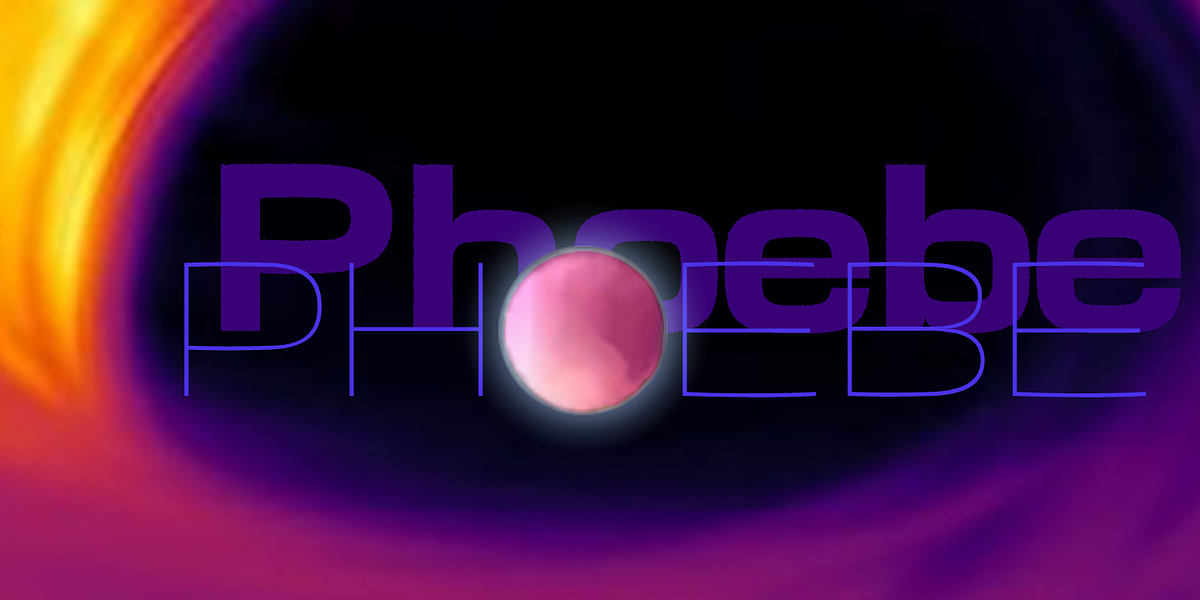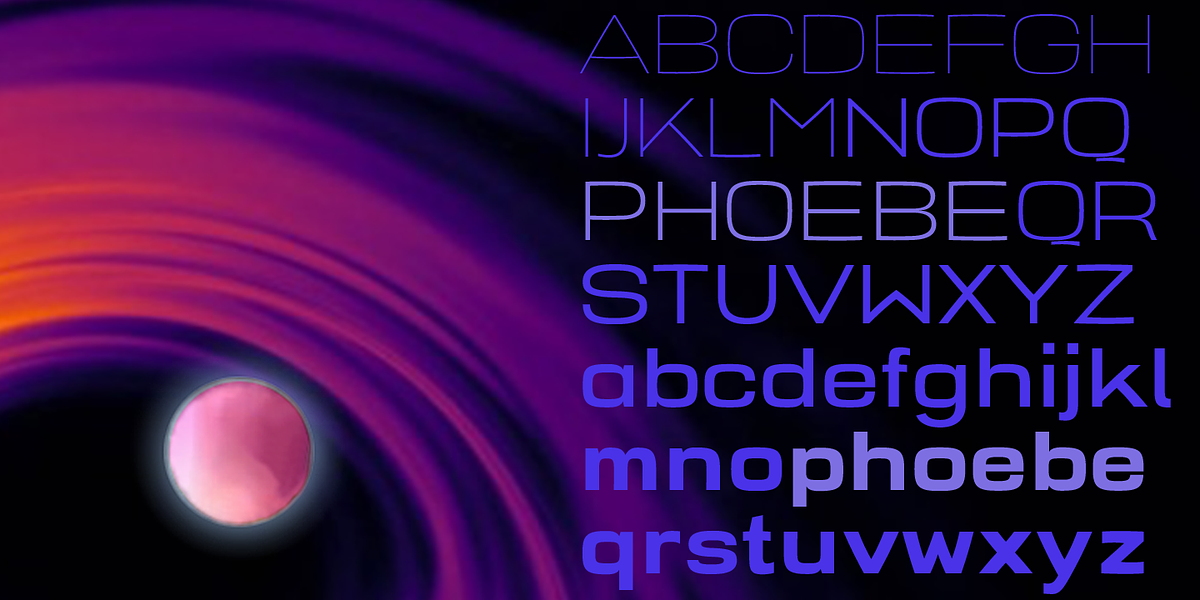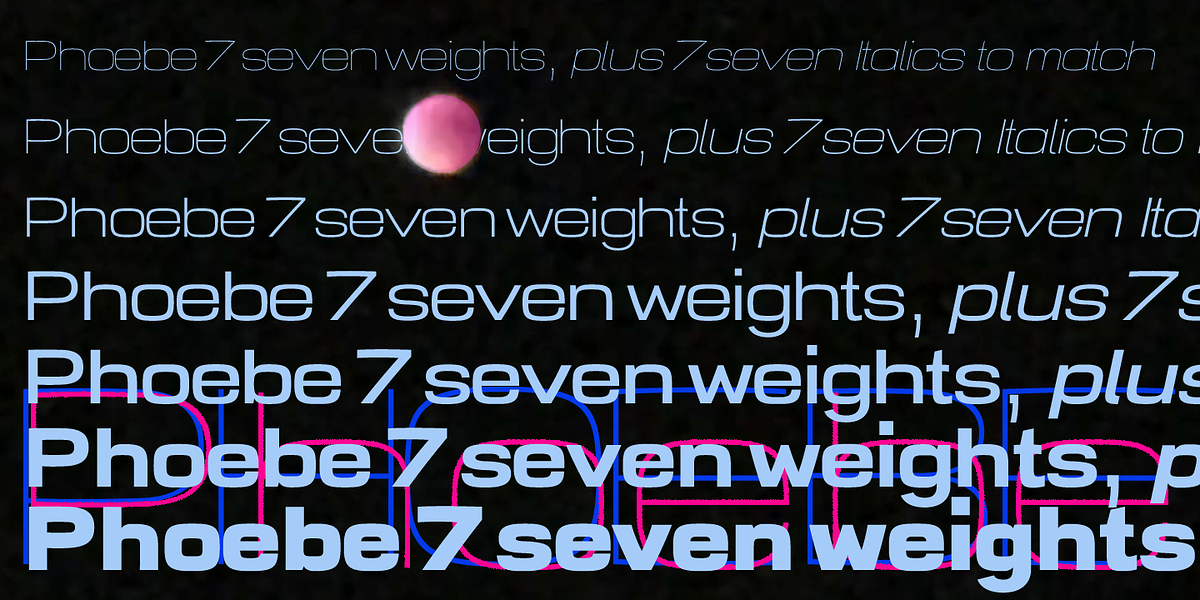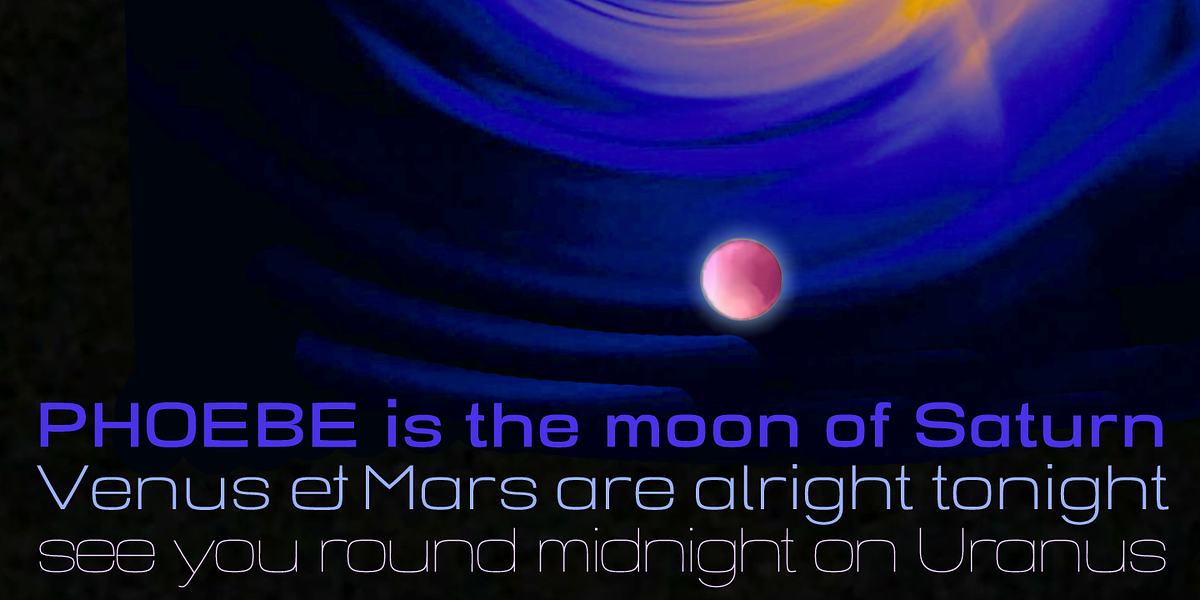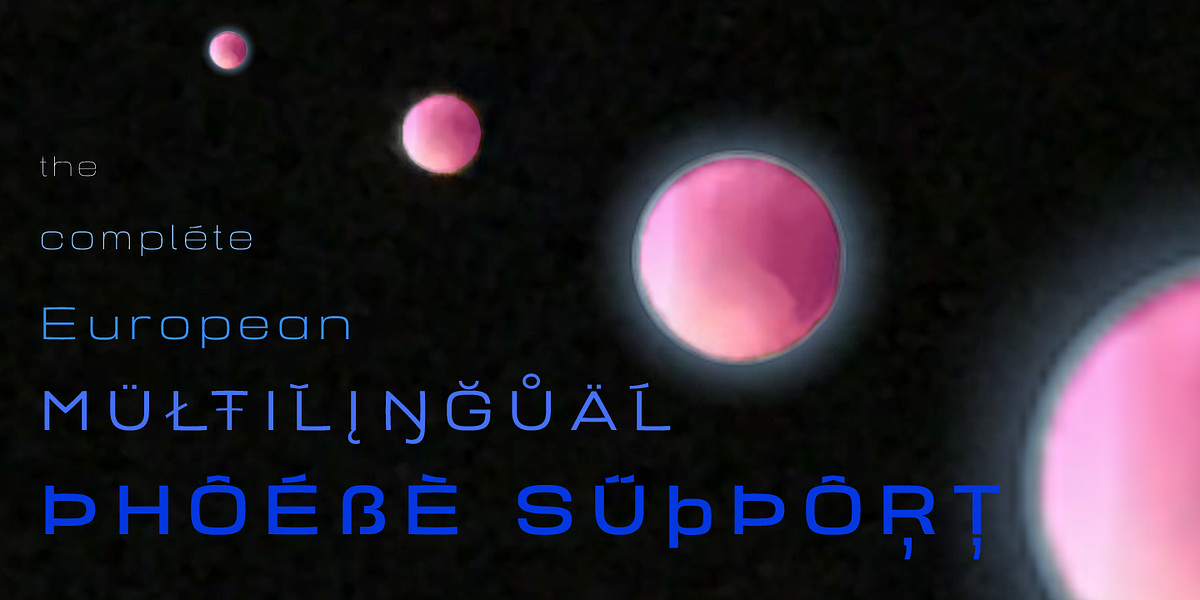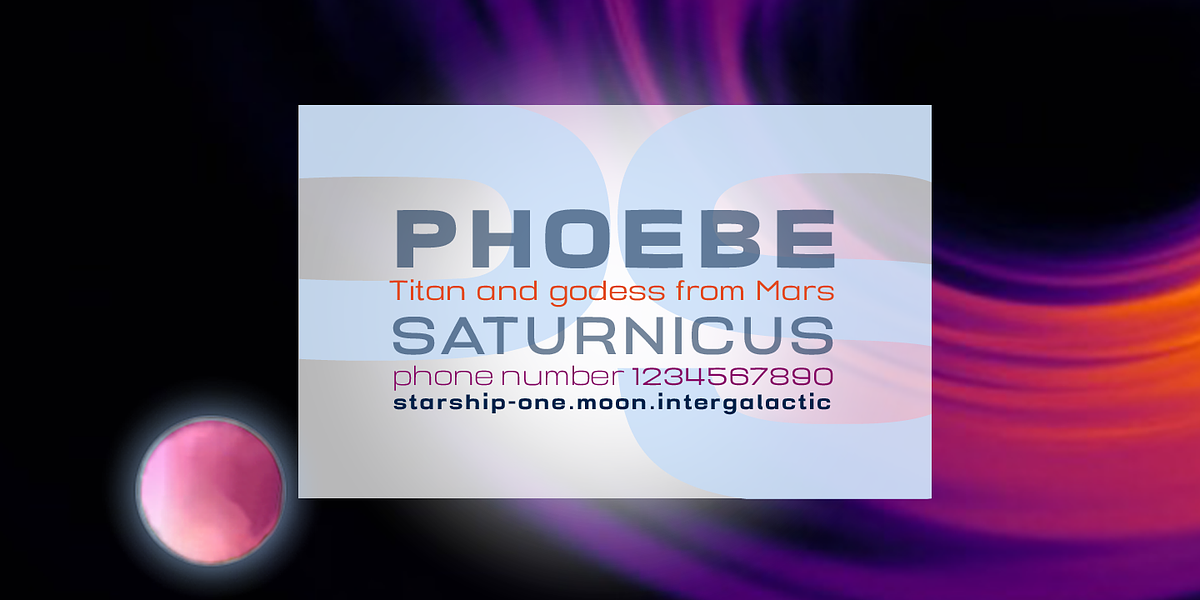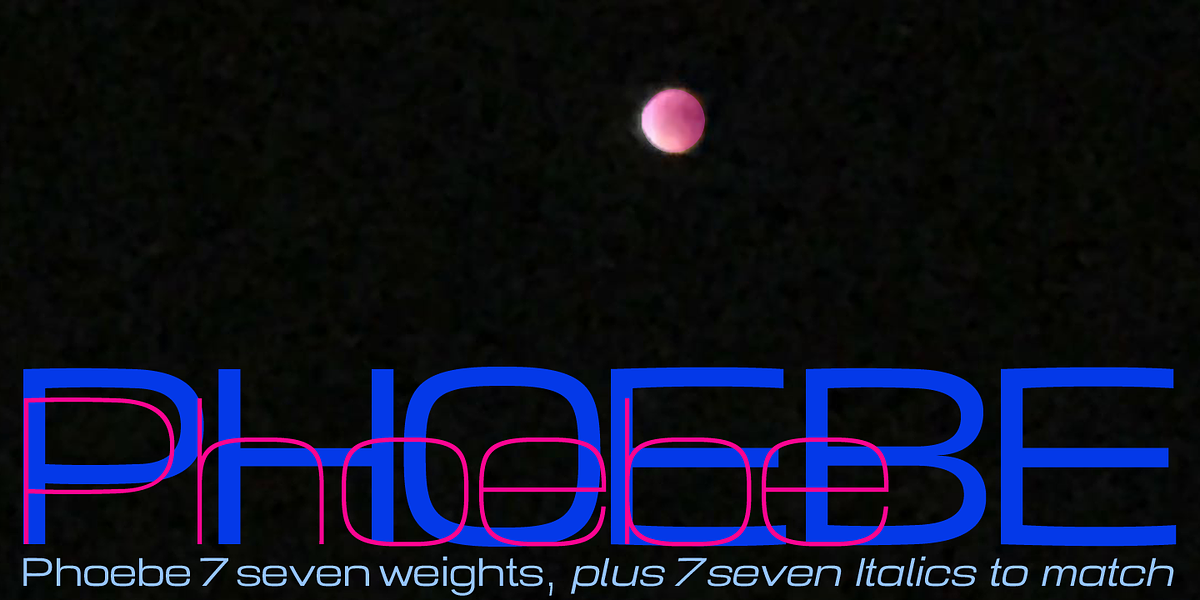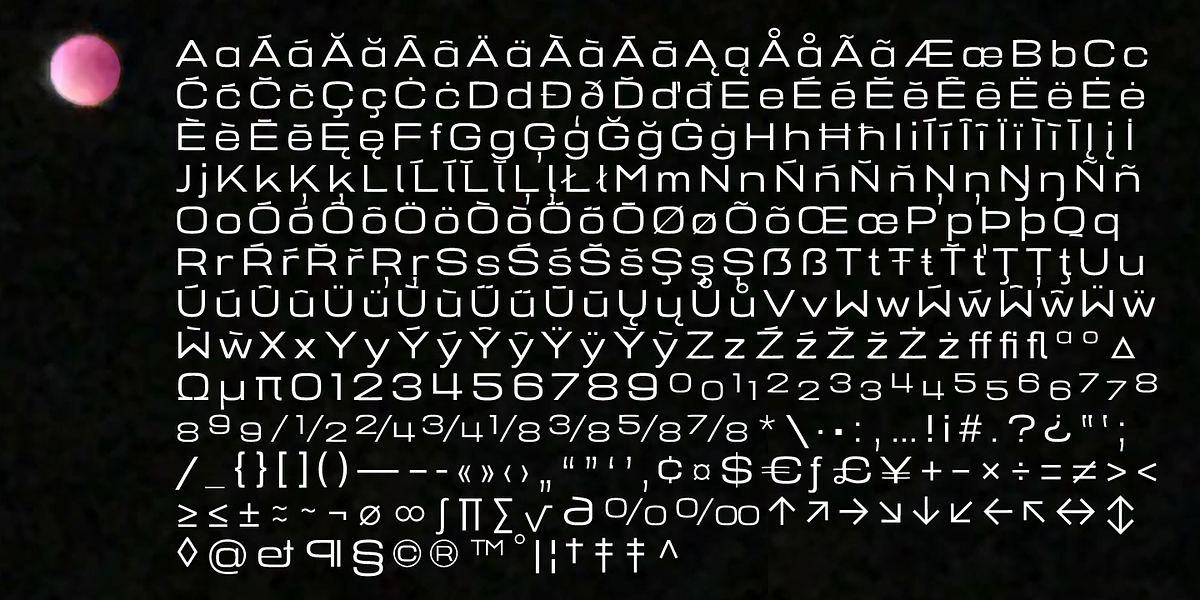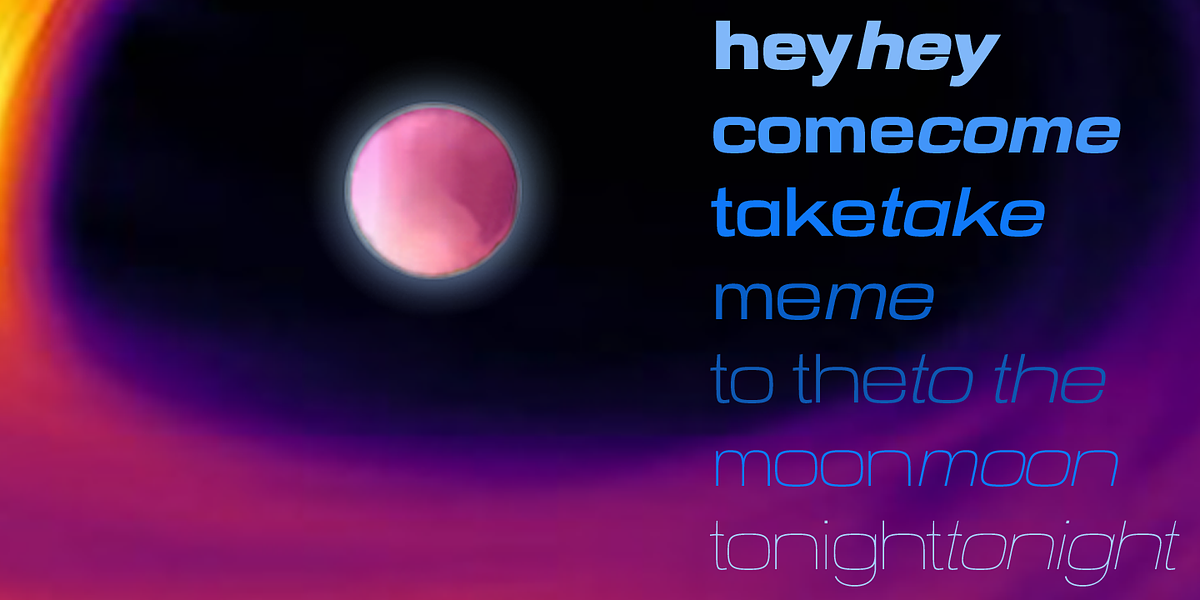
Phoebe
Phoebe is an experimental geometric sans-serif font characterized by its unconventional design and square structure. It is available in seven weights, making it versatile for various display applications.